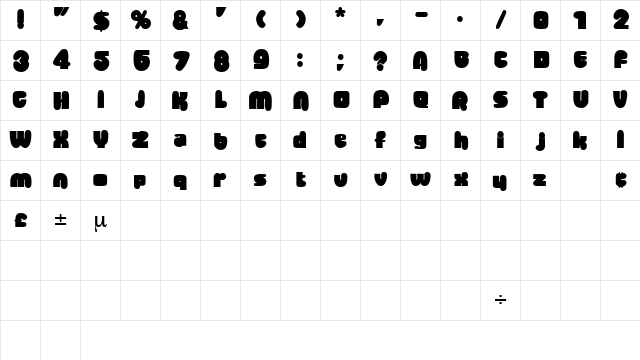
BantaDisplaySSK is built around its visual character rather than neutral utility - its distinctive forms are designed to make an impression at display sizes.
Font Pairing: Pair with a clean neutral sans-serif for body copy to let BantaDisplaySSK's character lead without overwhelming the composition.
Pro Tip: Use BantaDisplaySSK exclusively at display sizes - it was designed to be seen, not read at length. Let a neutral companion handle body copy.